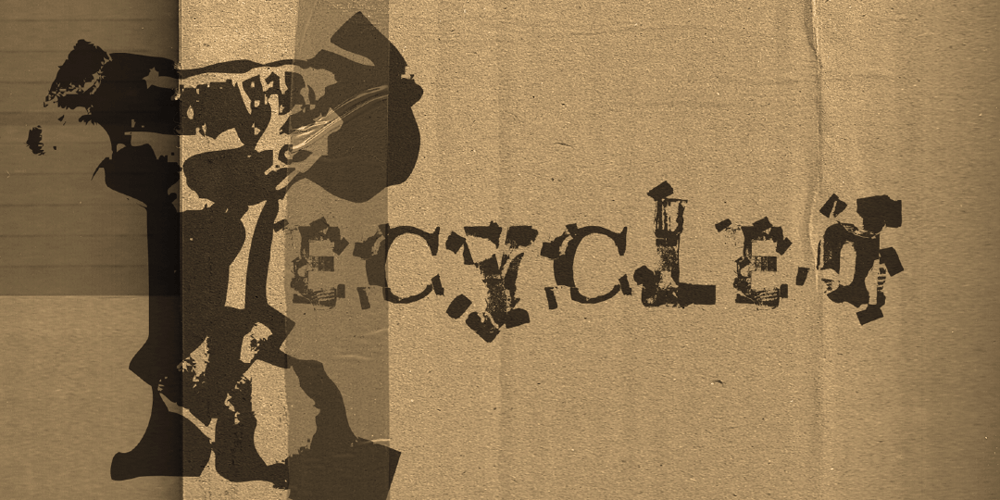
Recycled Font Family was designed by Kerry Gunn and published by Kerry Colpus Designs. Recycled contains 4 styles and family package options. Recycled was created by creating letters from bits of recycled materials such as cardboard, newspapers etc. and then taking parts of those letters to create new letters.